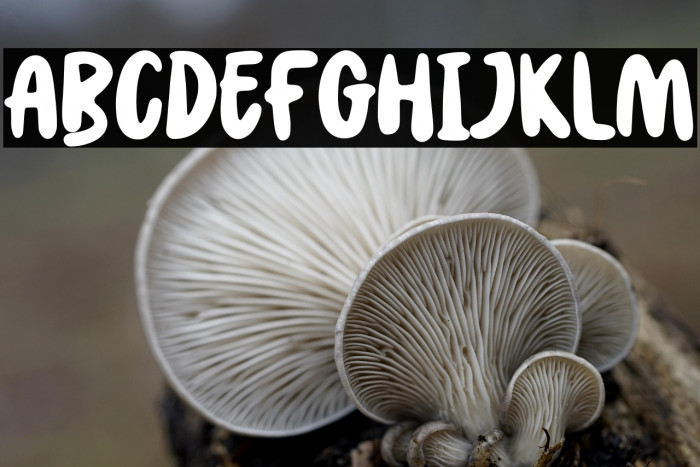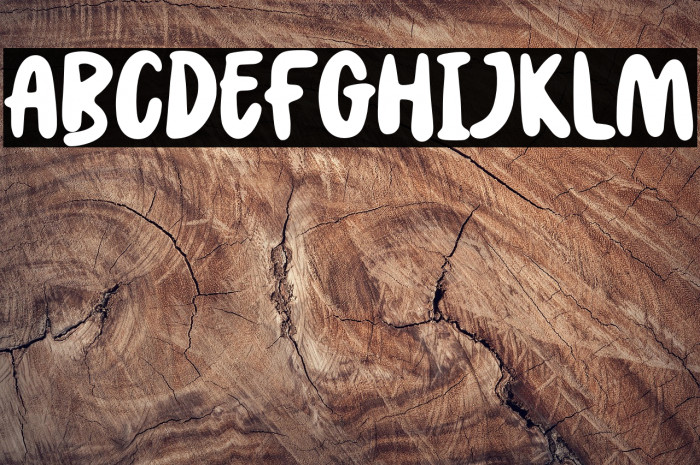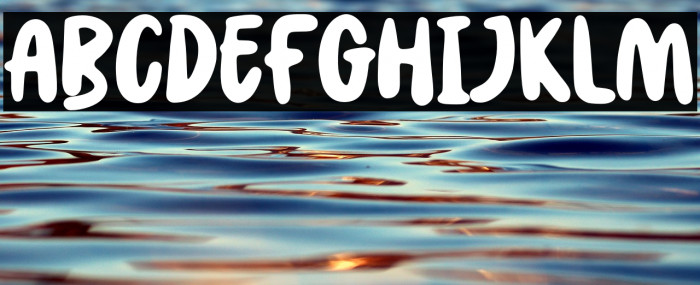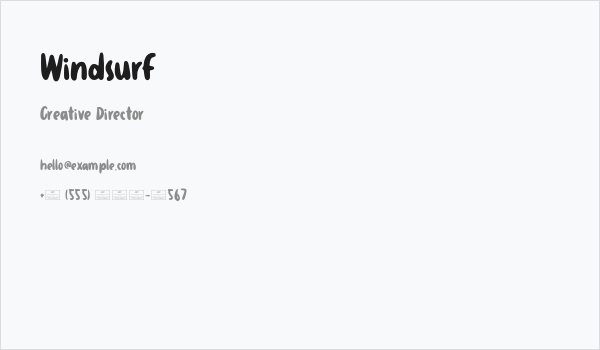
Windsurf Font
Windsurf Description
This font features a bold and playful handwritten style, characterized by its thick, rounded strokes and casual appearance. The letters are slightly irregular, giving it a lively and dynamic feel. The uppercase and lowercase letters maintain a consistent style, with the uppercase being slightly larger and more pronounced. The numbers and special characters are designed to match the overall aesthetic, ensuring a cohesive look across all text. This font is ideal for projects that require a fun and informal touch, such as children's books, playful branding, or creative posters.
| Use Case | Logos, Posters, Informal Text |
| Proposed Projects | Ideal for children's books, playful branding, and creative posters. |